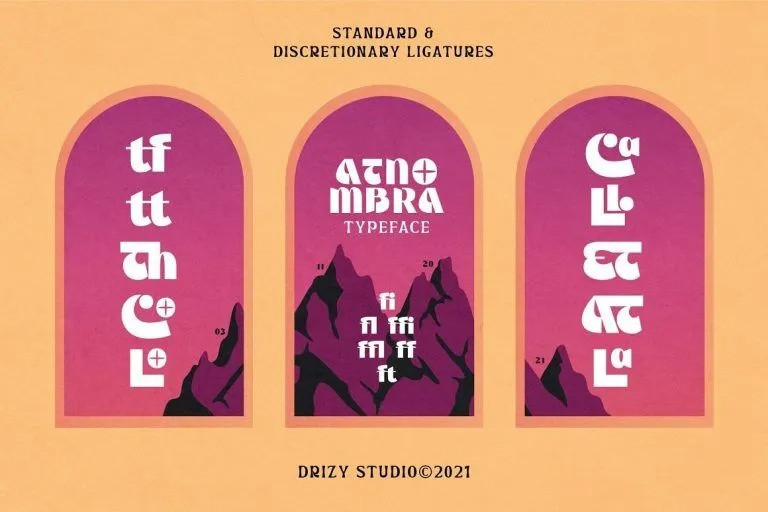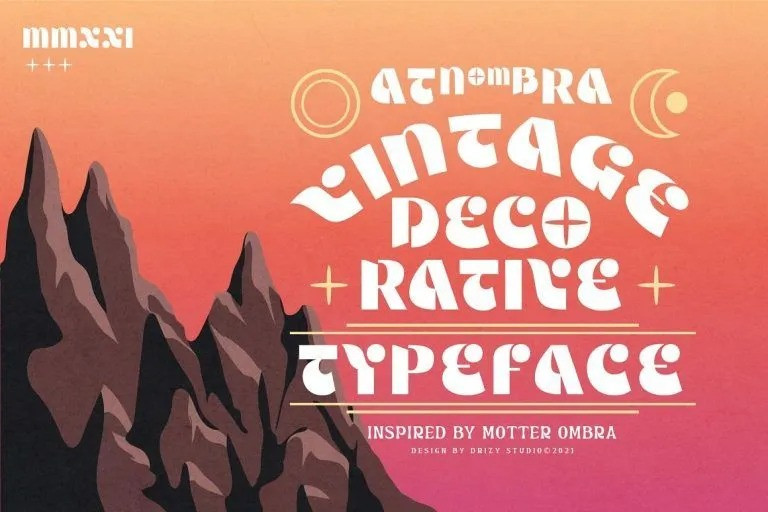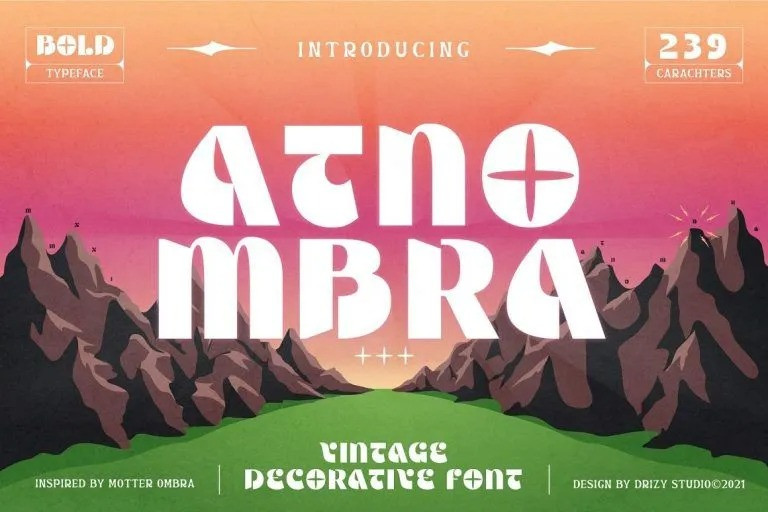
Atnombra Font
Atnombra Font is a vintage decorative font. Great for creating eye-catching headlines and applicable for any type of graphic design web, print, motion graphics, perfect for t-shirts and other items like logos, poster/ flyer, branding, packaging, etc.